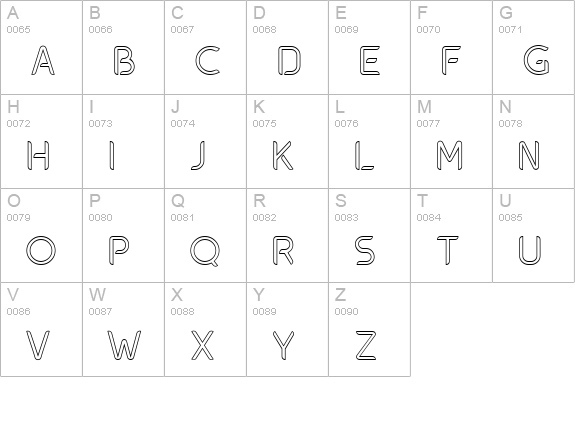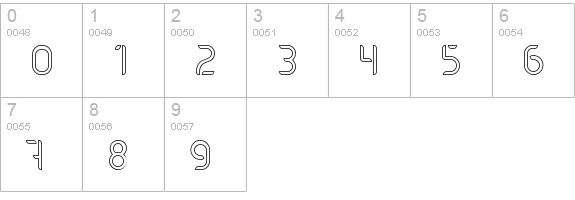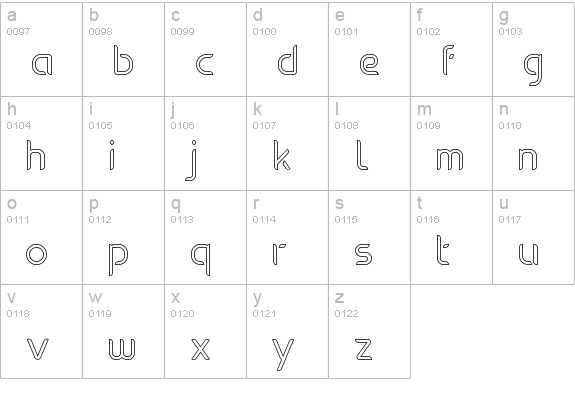
Introducing OxoOutline font, a modern and stylish typeface that is perfect for a wide range of design projects. This versatile font features sleek lines and a contemporary look that will make your text stand out. OxoOutline is the ideal choice for branding, logos, posters, and more. The best part? OxoOutline is available for free download at FontsMarket.com. Whether you're a designer looking to enhance your projects or a content creator in need of a fresh font, OxoOutline has got you covered. Don't miss out on this fantastic opportunity to elevate your designs with this striking and eye-catching font. Download OxoOutline today and let your creativity shine!